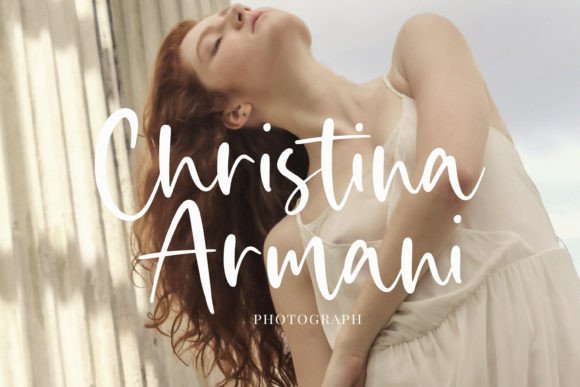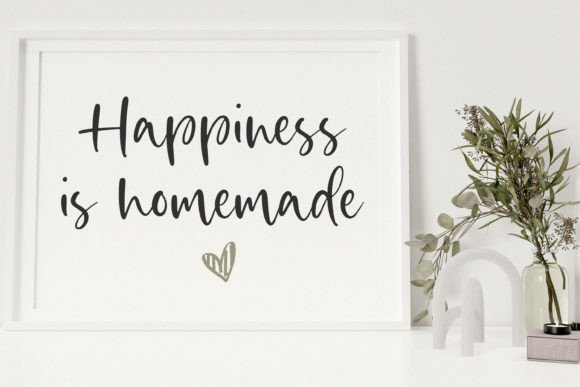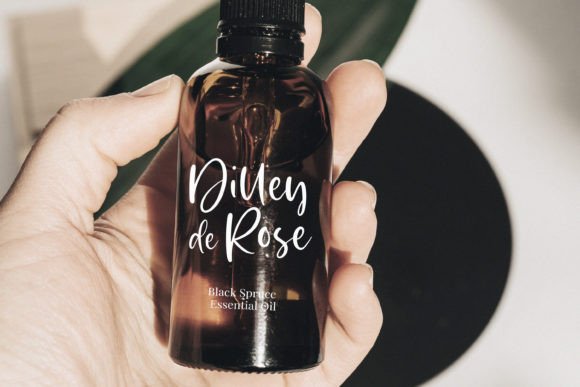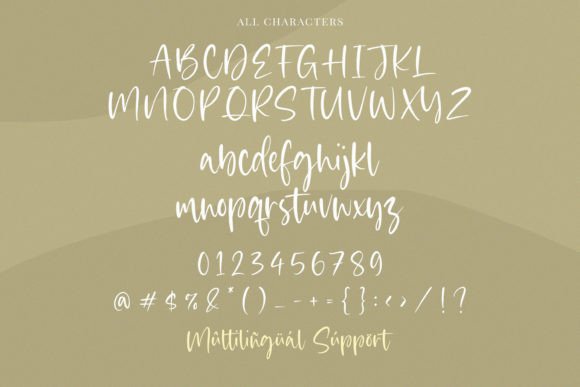
Introduction to Hills Eatery Font
There’s something magical about the moment when a design idea comes together – the perfect blend of colors, textures, and typography. It’s a feeling that can be hard to replicate, but with the right tools, you can unlock your creative potential. One of those tools is the Hills Eatery Font, a beautiful, flowing handwritten font that adds an elegant touch to any design project.
Whether you’re working on a branding project, creating a social media campaign, or designing a website, Hills Eatery Font is the perfect design resource to elevate your work. With its high-quality, unique style, you can create stunning visuals that capture your audience’s attention. And the best part? It’s available for free download, making it an invaluable asset for designers of all levels.
Key Features of Hills Eatery Font
- High-quality design resource for creative projects, ideal for restaurants, cafes, and food-related businesses.
- Transparent background, making it easy to use as a overlay or texture in creative projects.
- Available in multiple sizes and resolutions, including 300 DPI and 600 DPI, to cater to different design requirements.
- Unique, hand-drawn style that adds a touch of warmth and personality to any design project.
- Perfect for use in branding, packaging, and advertising materials, as well as digital media such as websites and social media graphics.
Honest Review: Hills Eatery Font
As a designer, I’m always on the lookout for high-quality design resources that can elevate my creative projects. Recently, I came across the Hills Eatery Font, and I’m excited to share my thoughts on it.
What works well: ✨ The Hills Eatery Font has a clean and modern design that’s perfect for any food-related project. It’s also incredibly versatile, with a range of weights and styles to choose from. I love the fact that it’s a free download, making it a great resource for designers on a budget.
- High quality: The font is well-designed and looks great at various sizes.
- Transparent background: The font’s transparent background makes it easy to use on images or backgrounds.
However, there are a few limitations: ⚠️ The font may not be suitable for all types of projects, and some designers may find the modern design a bit too trendy. Additionally, the font’s versatility can also make it feel a bit overwhelming to choose the right style.
Overall impression: I think the Hills Eatery Font is a great resource for designers working on food-related projects. While it may have some limitations, its high quality and versatility make it a great choice for any creative project.
Tips for Getting the Most Out of Hills Eatery Font
For optimal results, use Hills Eatery Font on a transparent background or with a high-contrast color scheme. This will help the font stand out and create a visually appealing design. Additionally, consider using Hills Eatery Font in combination with other high-quality design resources for a cohesive and creative project.
Common Use Cases for Hills Eatery Font
Hills Eatery Font is ideal for use in food and beverage branding, as well as creative projects such as menu design, recipe cards, and food blog headers. The font’s high-quality design and versatility make it a great addition to any design project.